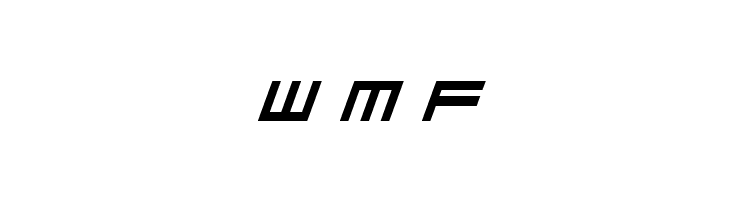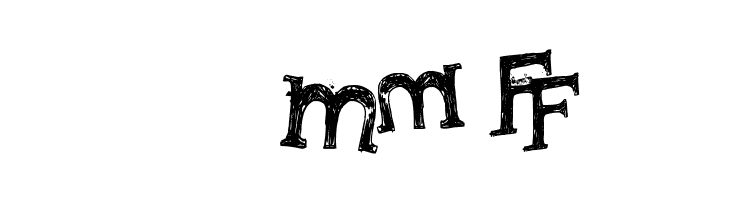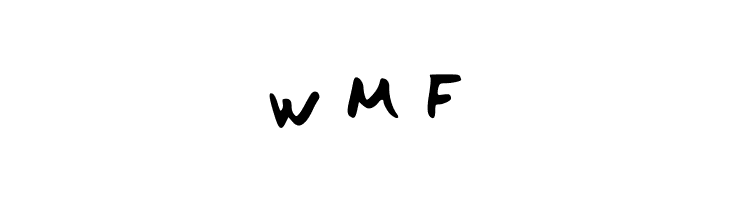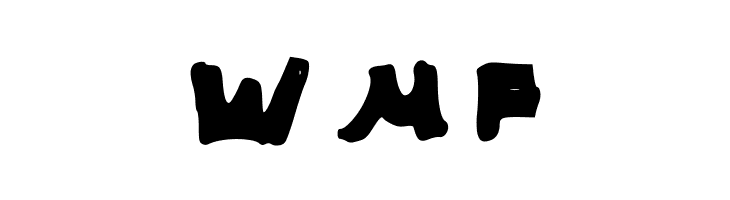
A hand-drawn, sketch-like font with swirling, textured lines and an artistic flair.
A bold, stencil-style font with a distressed, vintage appearance.
A playful, geometric font with characters enclosed in circles, connected like molecules.
A clean, minimalist font with geometric, thin strokes and high legibility.
A futuristic, outlined, and italicized font with geometric precision.
A bold, 3D geometric font with a futuristic style.
A bold, italicized font with a 3D effect and angular, futuristic design.
A geometric, futuristic font with sharp angles and a condensed style.
A bold, italicized font with a futuristic and angular design.
A futuristic, geometric outline font with angular lines and a modern aesthetic.
A futuristic, geometric font with bold, stylized characters and star accents.
A modern, decorative font with geometric shapes and varying stroke widths.
A bold, hand-drawn style font with irregular strokes and a creative flair.
A distressed, grunge-style font with a hand-drawn, energetic appearance.
A textured, playful font with a chalk-like appearance.